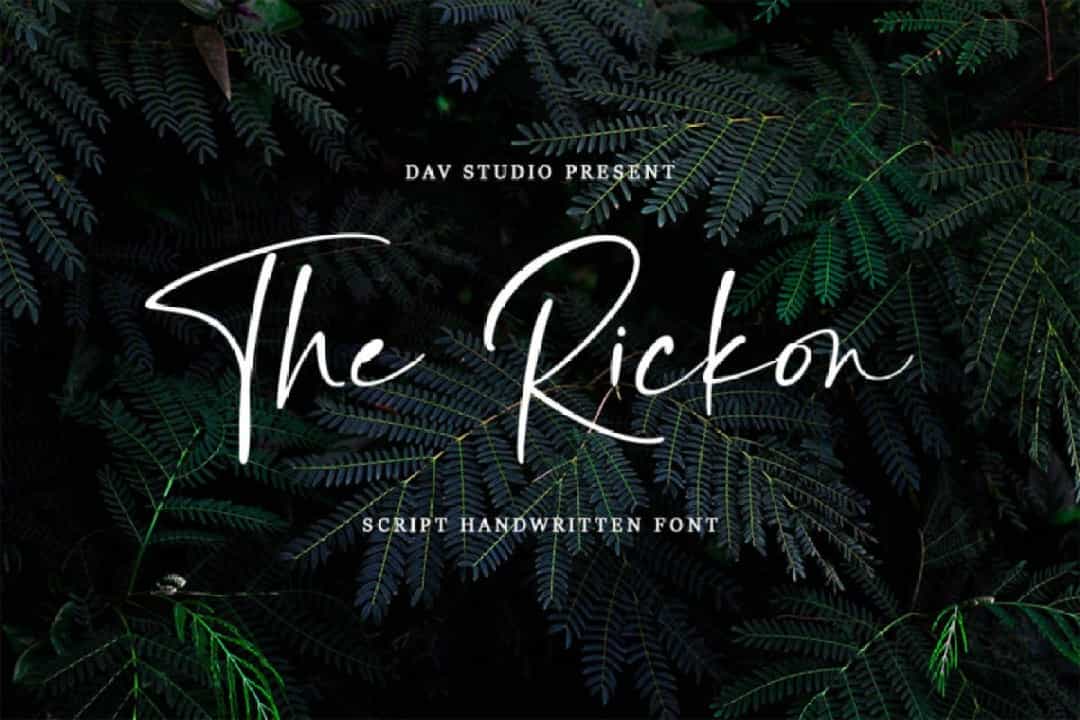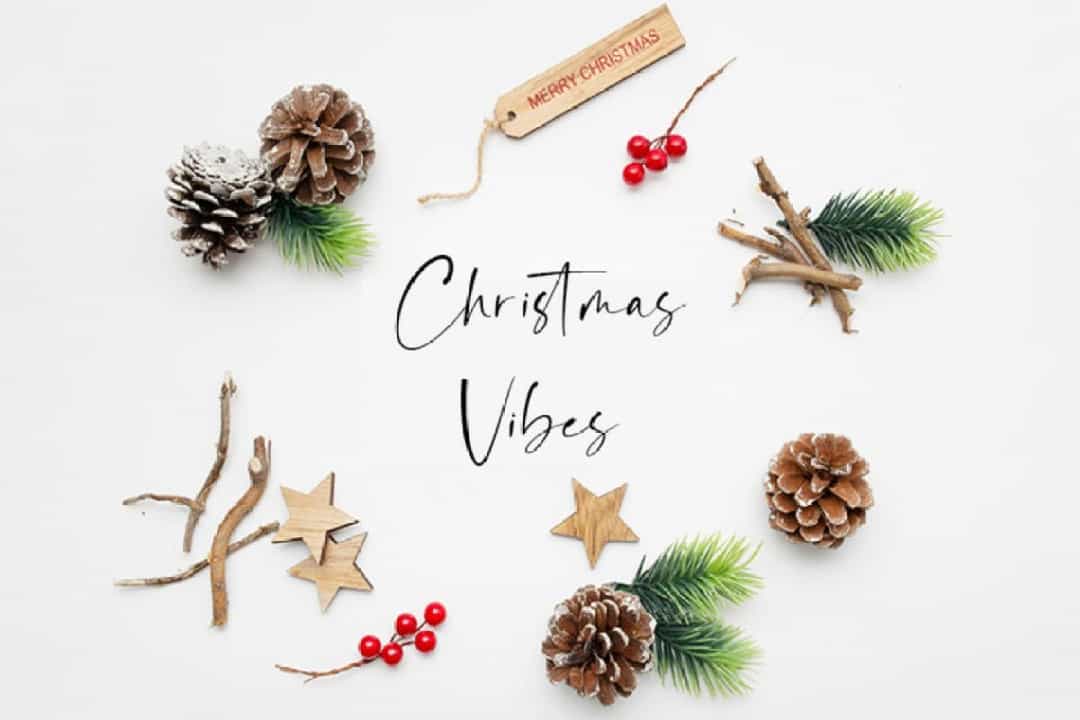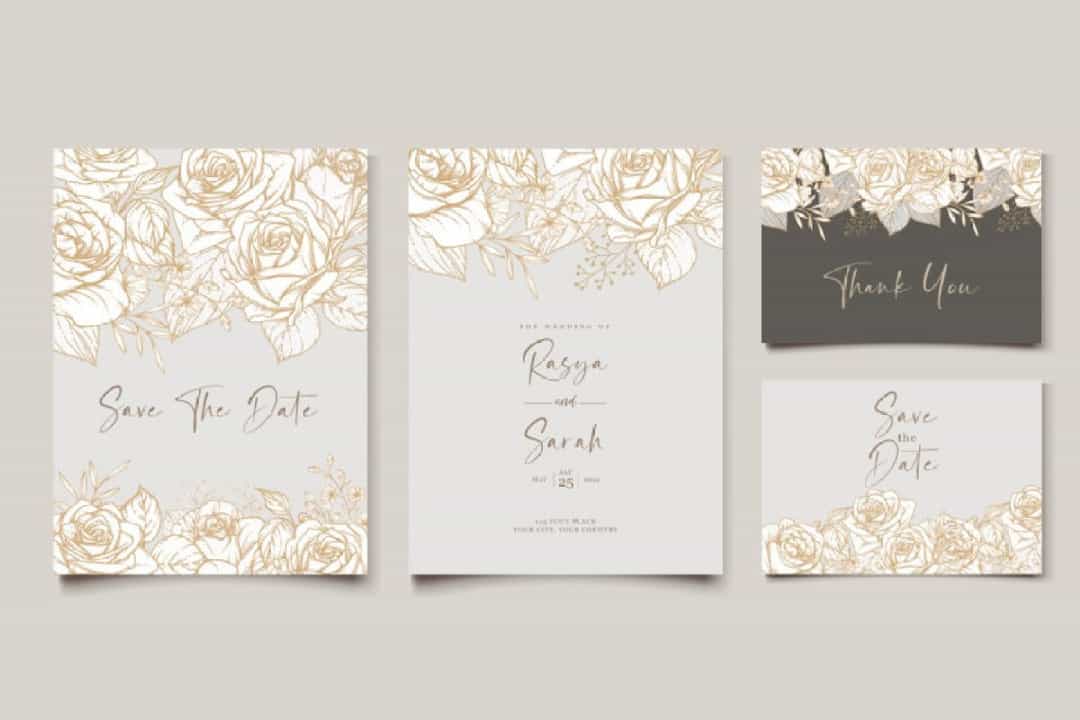
The Rickon is an elegant yet relaxed script font perfect for logos, branding stationery and greeting cards! Also, it is PUA encoded, meaning that you can easily get to the cute symbols it offers!